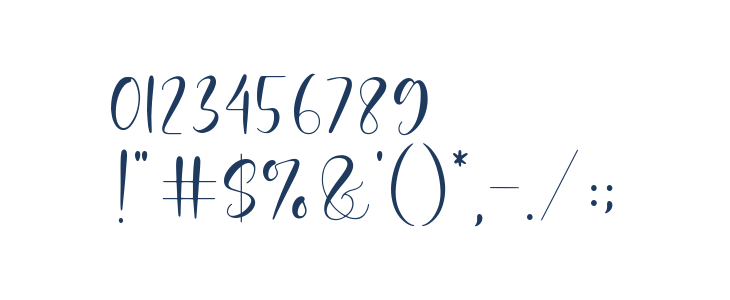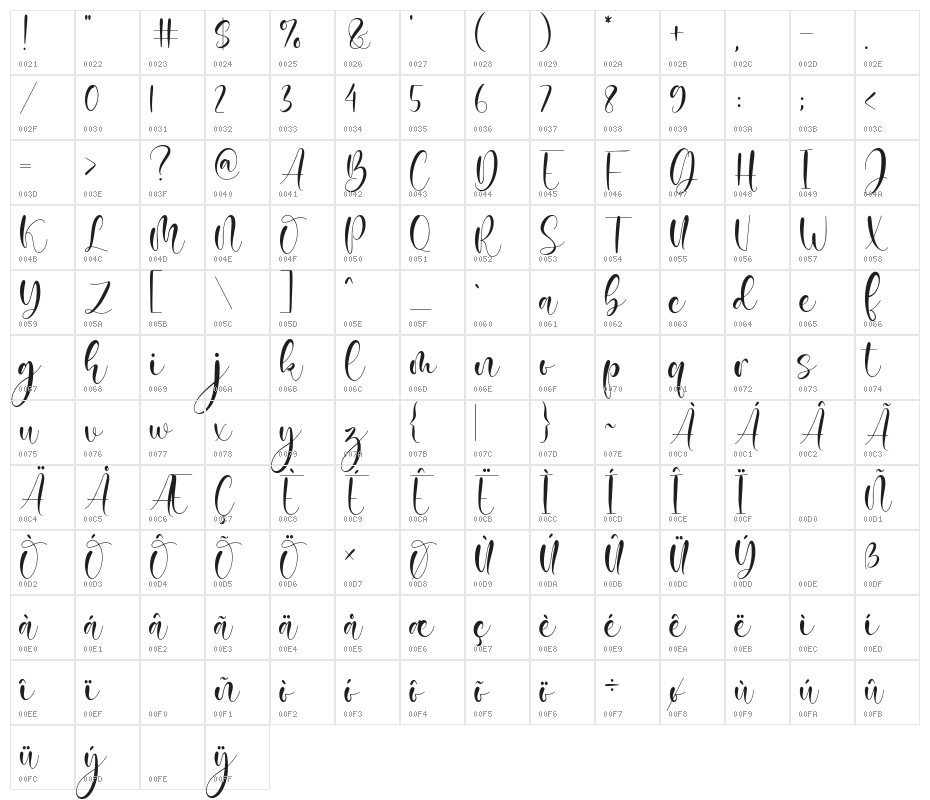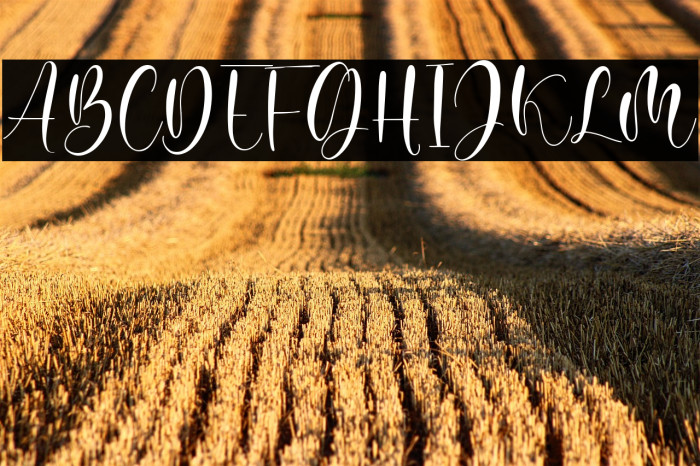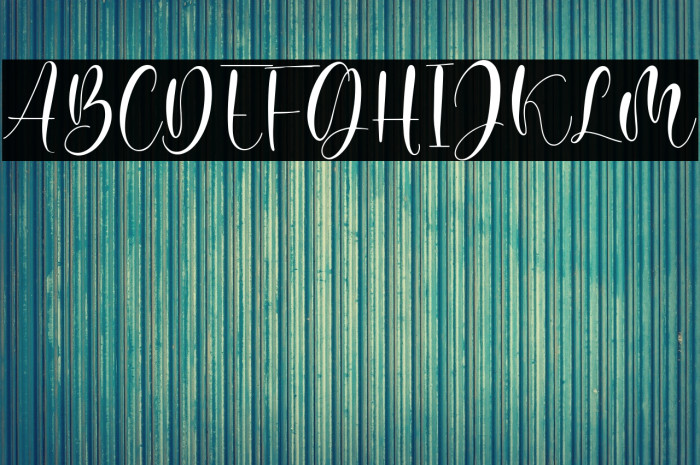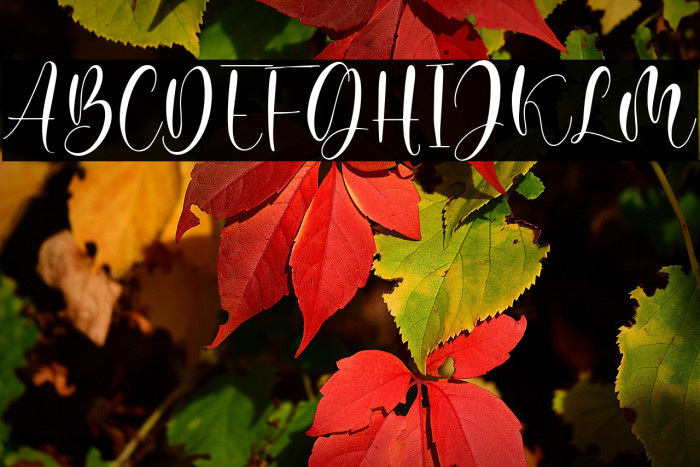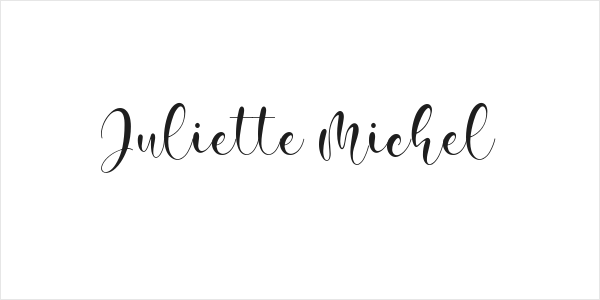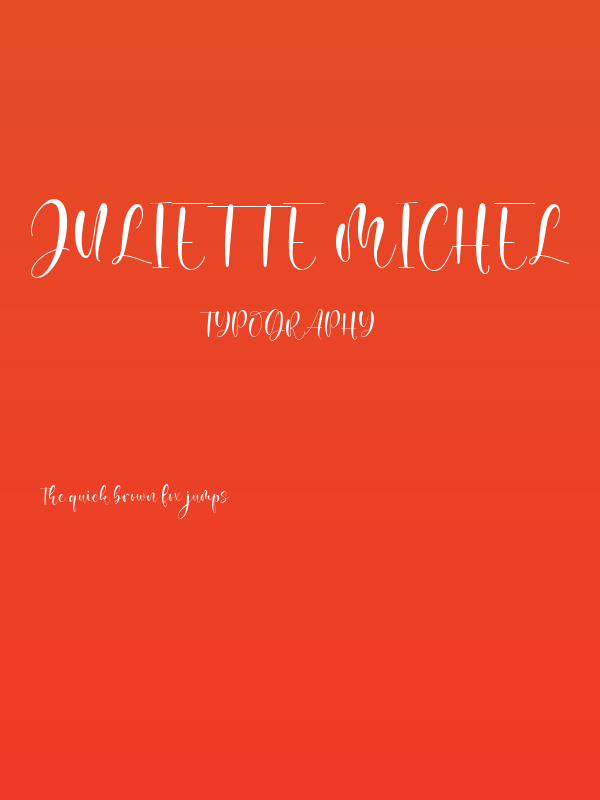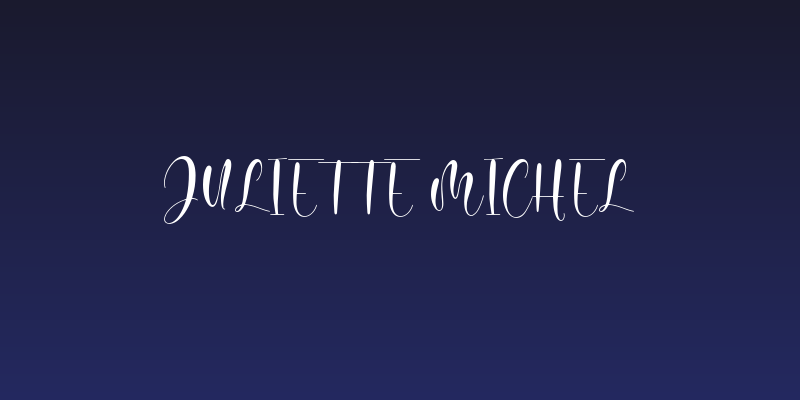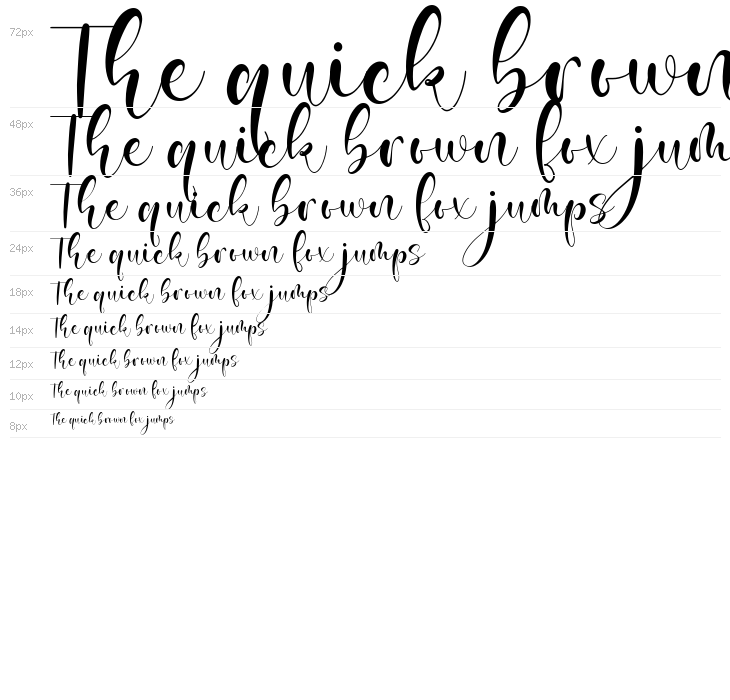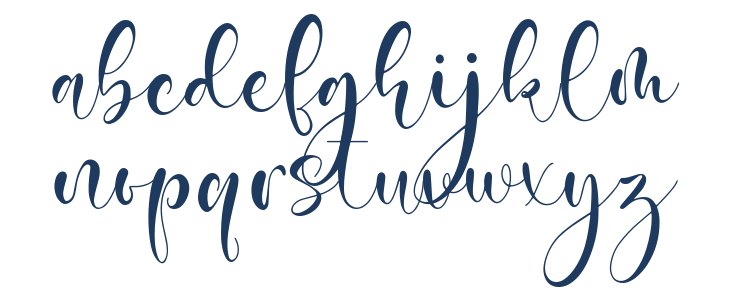
Juliette Michel Font
Juliette Michel Description
This font features an elegant and flowing script style, characterized by its smooth, cursive letterforms that exude a sense of sophistication and grace. The uppercase letters are particularly ornate, with sweeping lines and flourishes that add a touch of drama and flair. The lowercase letters maintain a consistent flow, with gentle curves and loops that enhance readability while preserving the font's artistic appeal. The numerals are designed to complement the overall style, with a similar emphasis on fluidity and elegance. Special characters are thoughtfully integrated, maintaining the cohesive aesthetic of the font. This script is ideal for projects that require a personal, handwritten touch, making it suitable for invitations, greeting cards, and branding materials that aim to convey a sense of luxury and refinement.
| Overall Style | Elegant, Decorative |
| Use Case | Invitations, Branding, Stationery |
| Proposed Projects | Ideal for wedding invitations, greeting cards, luxury branding, and elegant stationery. |